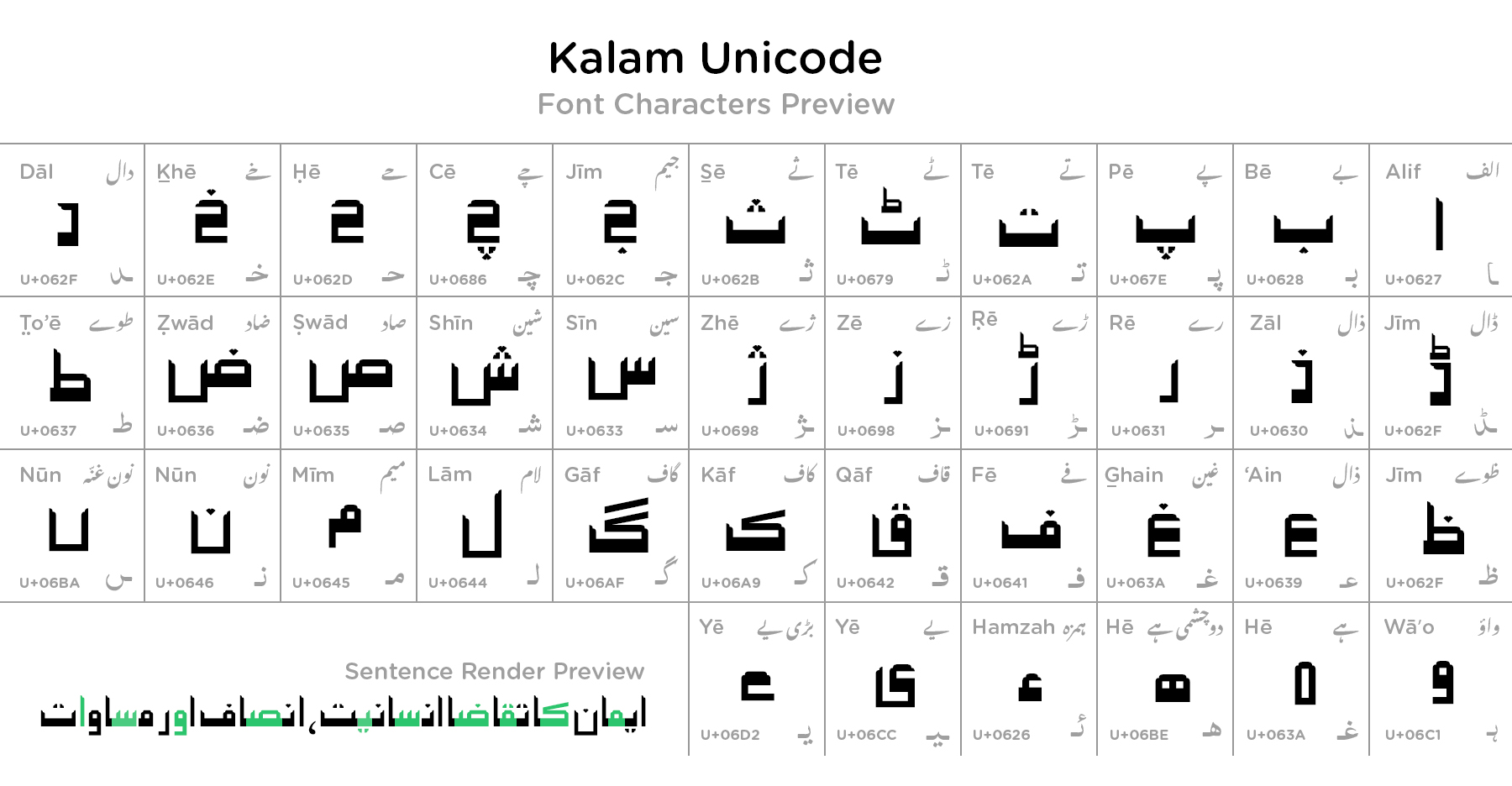
Kalam Unicode, crafted by Syed Manzar Hasan Zaidi and published by Axis Softmedia Pvt. Ltd., is a modern and decorative typeface with bold, wide, and filled letters reminiscent of pixelated fonts. Released on October 10, 2017, it features 432 characters and 497 glyphs, supporting Urdu, Arabic, Latin, Persian, and more languages. Inspired by the Naskh script, the font has modern influences to create a visually striking font suitable for various design projects. Its extra-bold weight and thick, impactful strokes contribute to its decorative nature, making it ideal for short-text applications with high legibility on screens. However, prolonged reading may pose challenges due to its thick and decorative style. Kalam Unicode's unique look and feel, characterized by wide letterforms and thin pointy edges, gives it a blocky appearance which kind of look like pixelated fonts. This distinctive style makes it suitable for branding, advertising, logos, posters, games, T-shirts, and book covers. With compatibility across various Unicode blocks, including Basic Latin, Arabic, and Geometric Shapes, Kalam Unicode offers versatility in design applications.